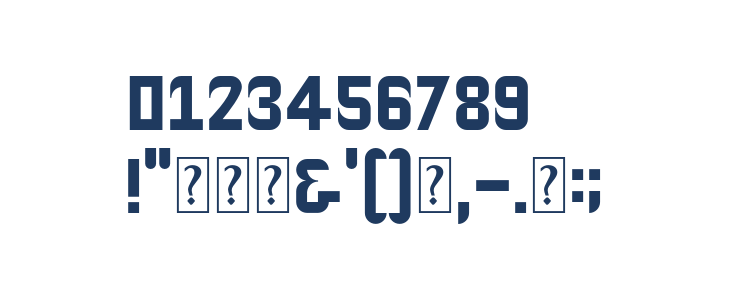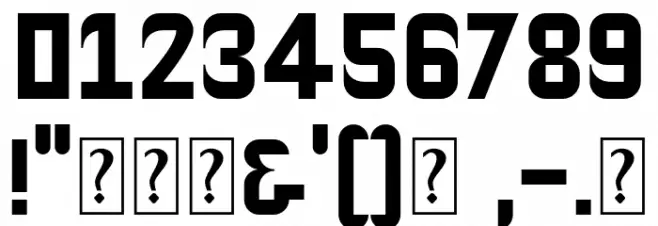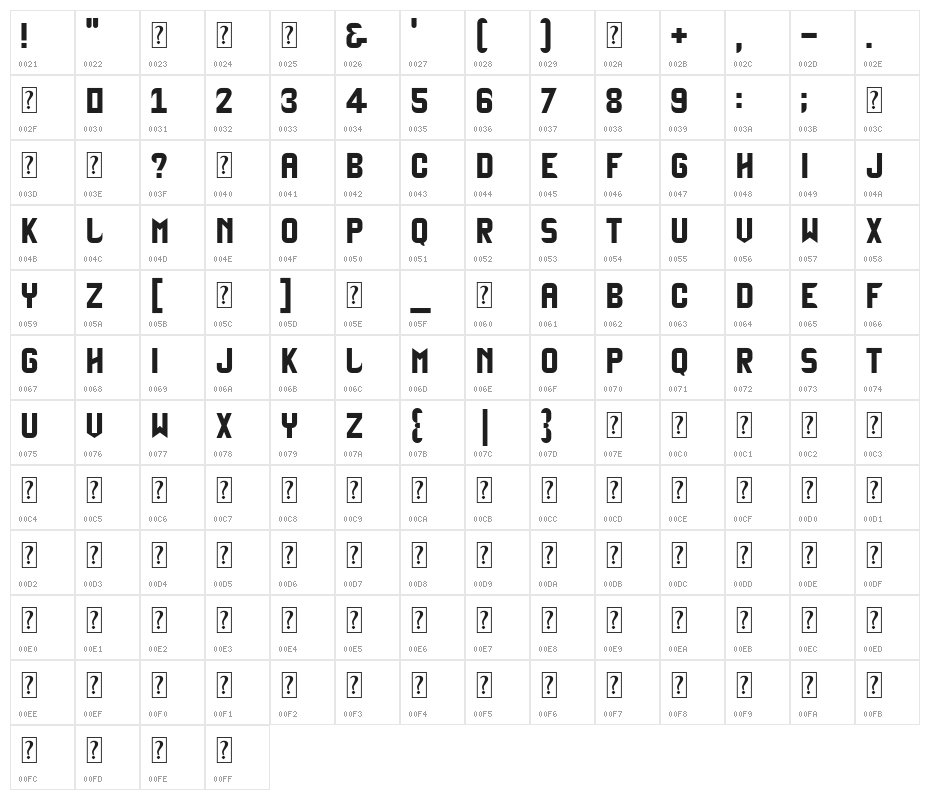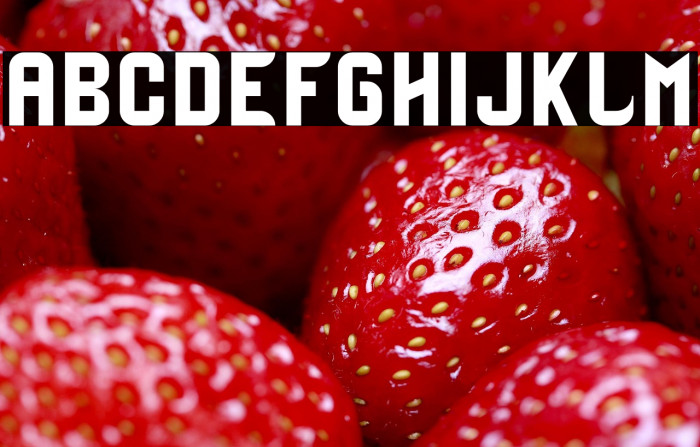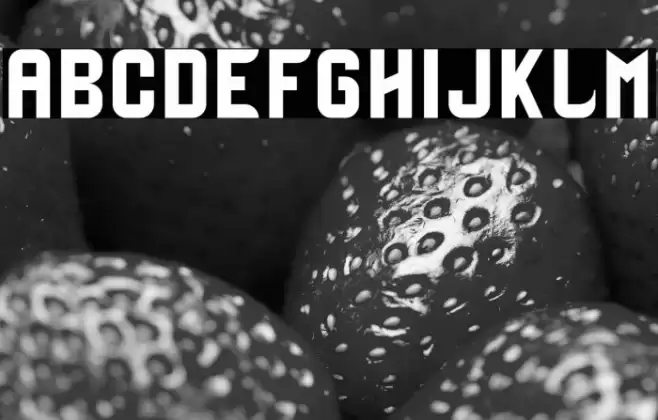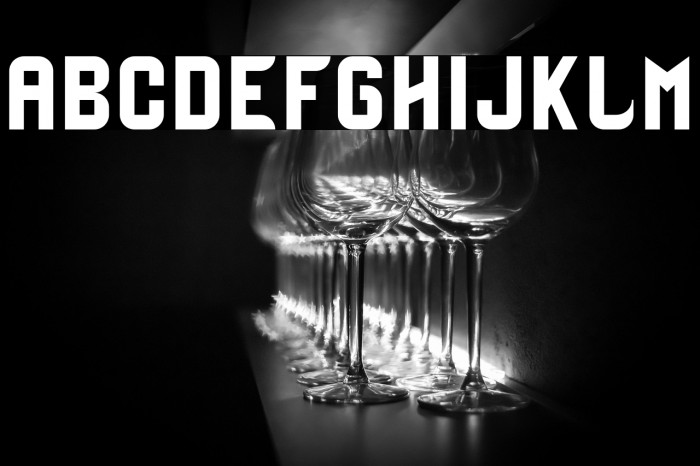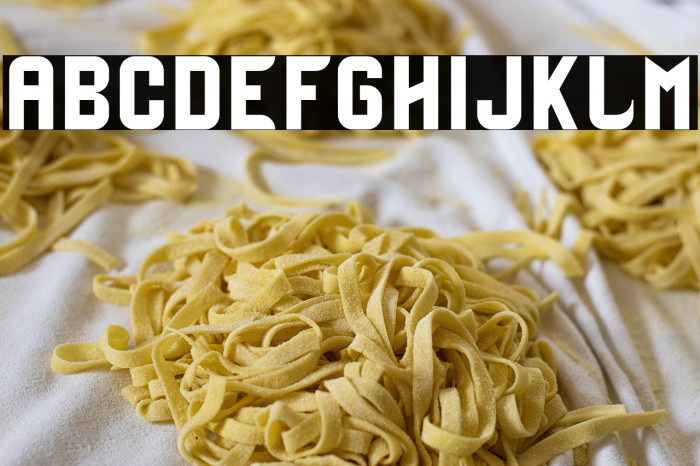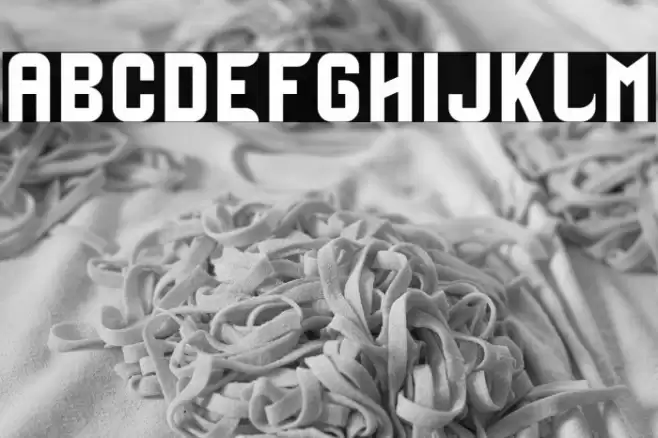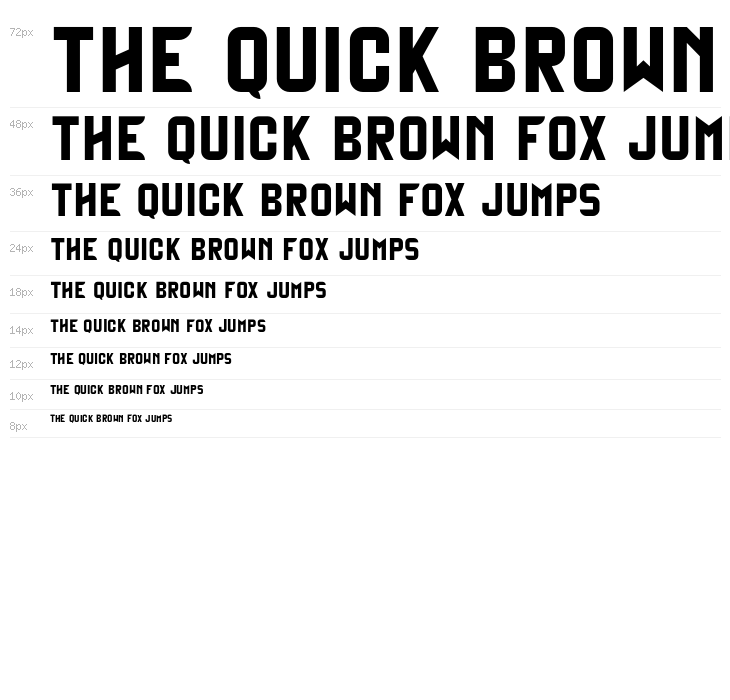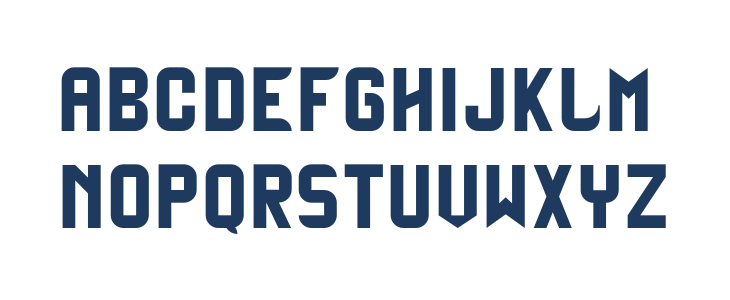
Zinbox-Bold Font
Zinbox-Bold Description
This font features a bold and robust design with strong geometric shapes and a modern aesthetic. The uppercase letters are uniform in height, with a consistent stroke width that gives a powerful and assertive appearance. The numerals are equally bold, maintaining the geometric style, which ensures clarity and readability. The special characters are designed to complement the overall style, with a focus on symmetry and balance. This font is ideal for making a strong visual impact, suitable for headlines, posters, and branding materials where a bold statement is needed.